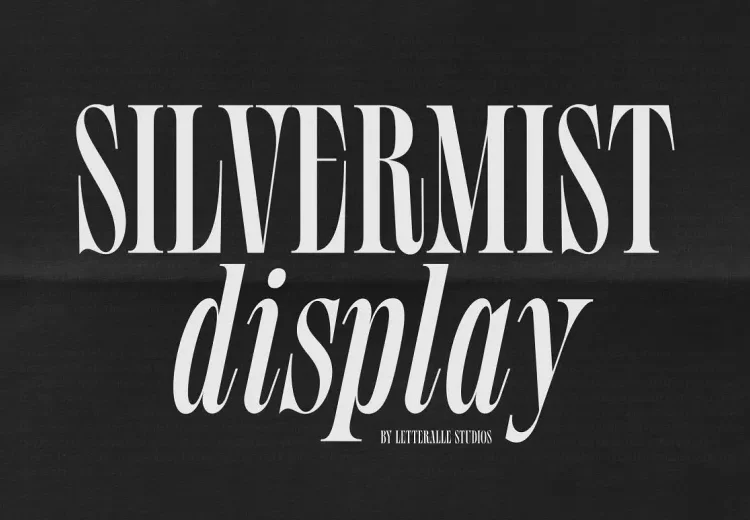
Silvermist Font
Silvermist is a striking font designed to convey strength and masculinity with confidence. Its high-pitched letters create a bold, attention-grabbing look, making it an ideal choice for logo design, editorial projects, music album covers, clothing branding, and packaging. Silvermist is also perfect for magazine headers or chic text overlays on background images, adding a dynamic and stylish touch to any design.
This versatile font stands out with its bold presence, bringing modern sophistication to your branding and creative projects. Whether you’re working on product packaging, magazine layouts, or promotional material, Silvermist helps your designs make a powerful statement.